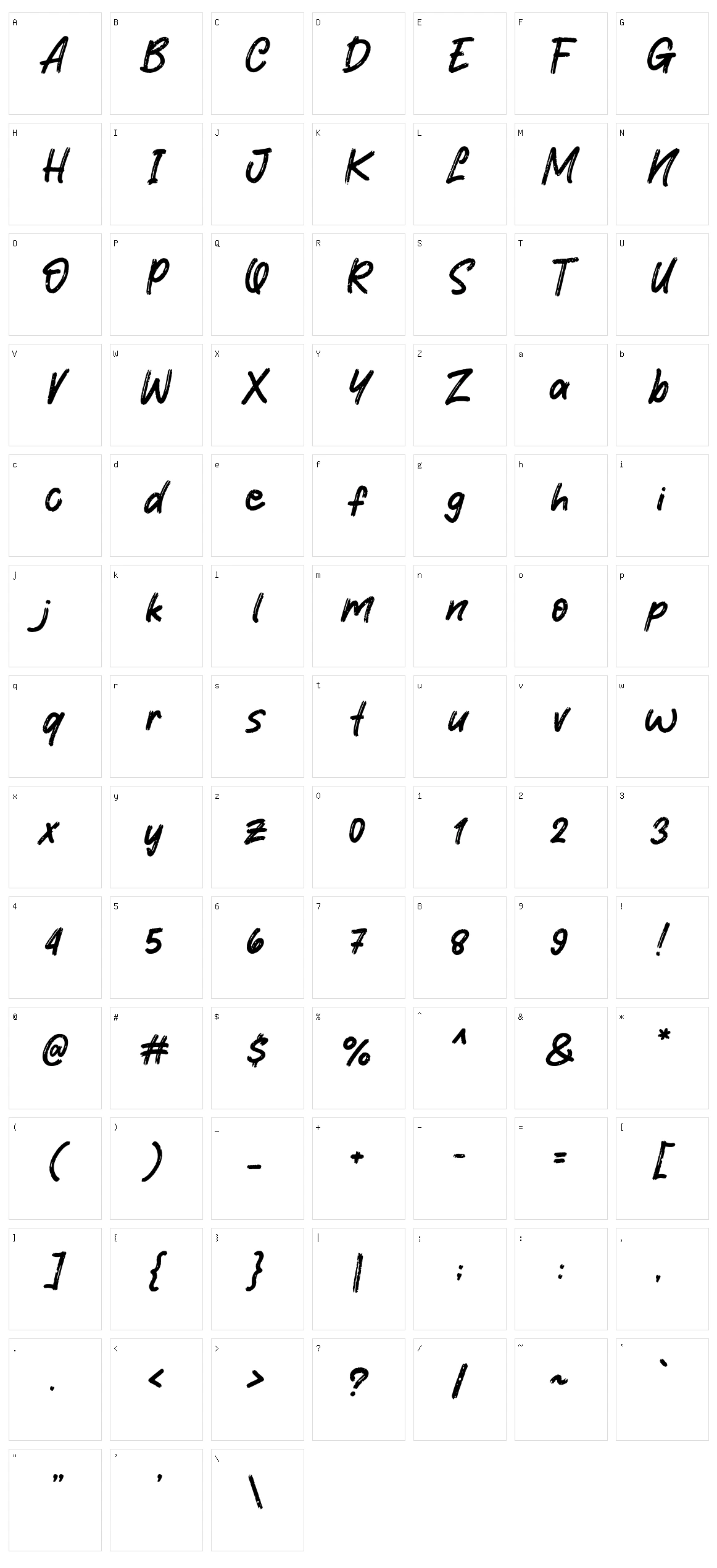
The free font Hey March is carefully designed by Khurasan, showcasing a thoughtful balance of creativity and usability and falls under the Script font style. When you download the ZIP file, it contains only 454.45 KB of font files, making it lightweight and quick to download. Please review the license details below to understand permitted usage and distribution rights. If license information is not available, we recommend using this font for personal projects only or contacting the author directly for commercial usage permissions.